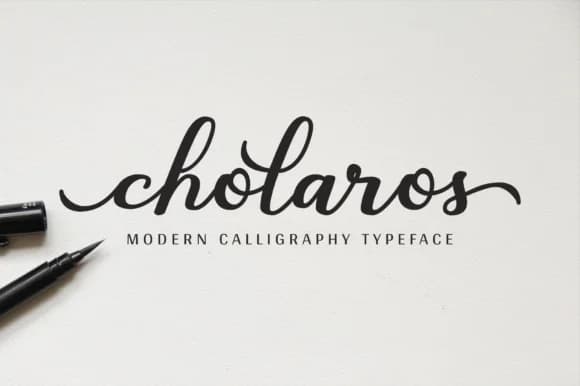
Cholaros by Her Letter is a bold calligraphy script that marries contemporary sensibility with genuine hand-drawn warmth. The thick, expressive strokes anchor the letterforms while subtle irregularities preserve that organic, lived-in quality that makes hand lettering resonate. This isn't slick perfection; it's genuine personality in every letter, the kind that makes a design feel handcrafted rather than processed.
The font performs reliably across numerous applications because it balances boldness with refinement. Wedding invitation suites gain real emotional depth that standard typefaces can't deliver, while the same authentic character serves luxury cosmetics packaging and artisanal food labels where handmade credibility carries significant weight. On Etsy product tags and custom greeting cards, Cholaros feels deeply personal without sacrificing legibility. Designers rely on it for social media graphics, custom signage, branding projects, and other applications where a distinctive voice counts far more than neutral efficiency or trend-chasing. Even at smaller sizes, the substantial weight keeps letters clear and readable, which opens up layout possibilities well beyond what most display scripts allow. That accessibility makes it useful across a wider range of projects than you might expect from a script this expressive.
Cholaros Font is a script font that shines as a display or heading face. Pair it with a clean sans-serif or serif font for body text β the contrast creates a clear hierarchy while the two styles stay balanced and easy to read.
Cholaros Font
by Her Letter